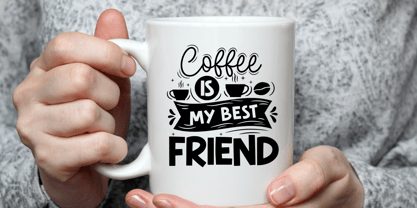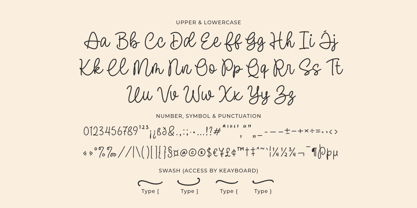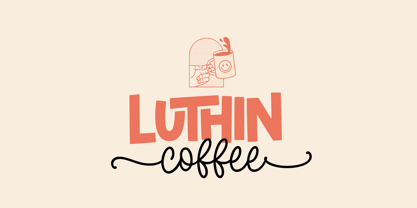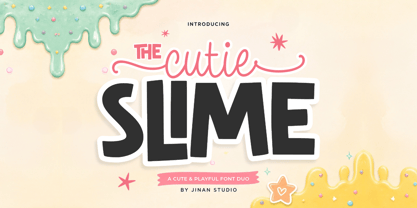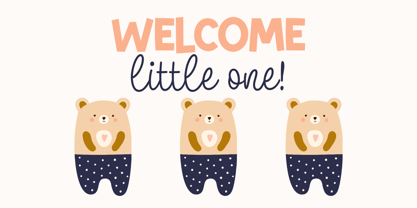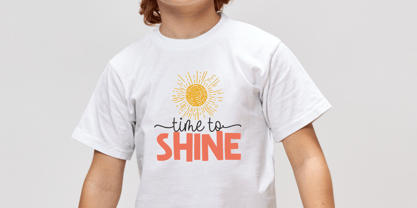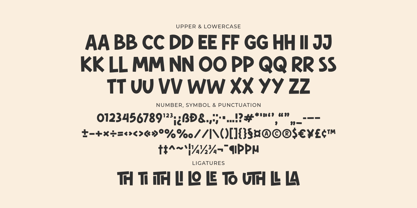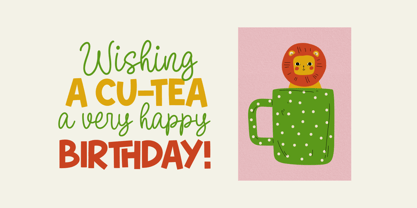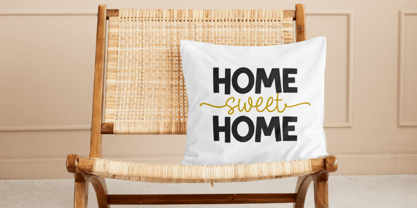
Cutie Slime
The Cutie Slime Font Family was designed by Andi Syahdang, Ainun Jinan and published by Jinan Studio. Cutie Slime contains 2 styles and family package options. More about this family
Cutie Slime is a cute and playful font duo designed to bring joy, color, and personality into your creative projects. This unique combination includes a bold display sans serif font paired with a smooth handwritten script, making it perfect for eye-catching and cheerful designs.
With its chunky, high-impact letterforms and sweet flowing script, The Cutie Slime creates the perfect balance between fun and readability. Inspired by slime textures, candy colors, and happy childhood vibes, this font duo is ideal for designers looking to create bright and engaging visuals.
Features
• A set of uppercase and lowercase glyphs (Allcaps Sans Version)
• Number, symbol, and punctuation
• Alternate and Ligature
• Swash
• Multilingual Support
So Easy to Use
Access Swashes by keyboard
• key bracketleft ' [ '* to feature beginning swash 1
• key braceleft ' { '* to feature beginning swash 2
• key bracketright ' ] '* to feature ending swash 1
• key braceright ' } '* to feature ending swash 2
For Example: type [happy]